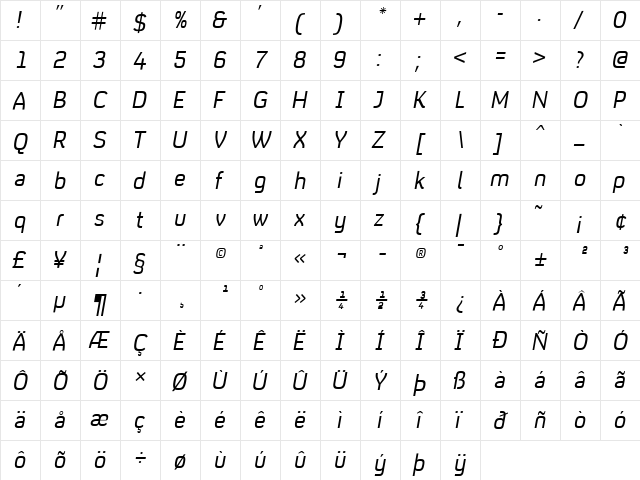
LikeBBC4 Italic
Design Context for LikeBBC4 Typeface
LikeBBC4 is a composed and adaptable typeface that performs quietly and consistently across a wide range of design contexts. The slanted form adds forward momentum and visual energy.
Pro Tip: Use LikeBBC4 for emphasis, pull quotes, and subheadings where its slanted energy can add rhythm to the layout.